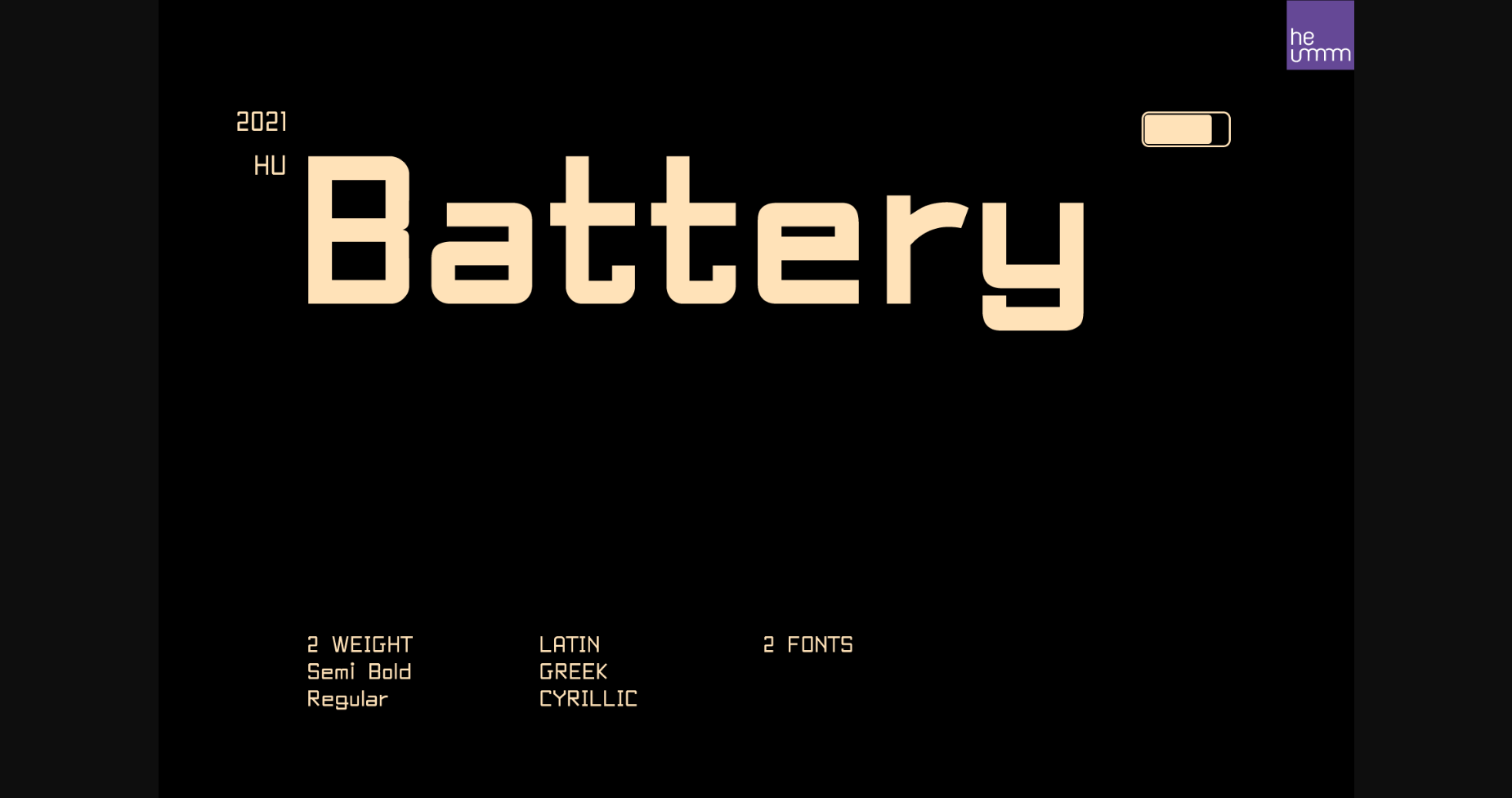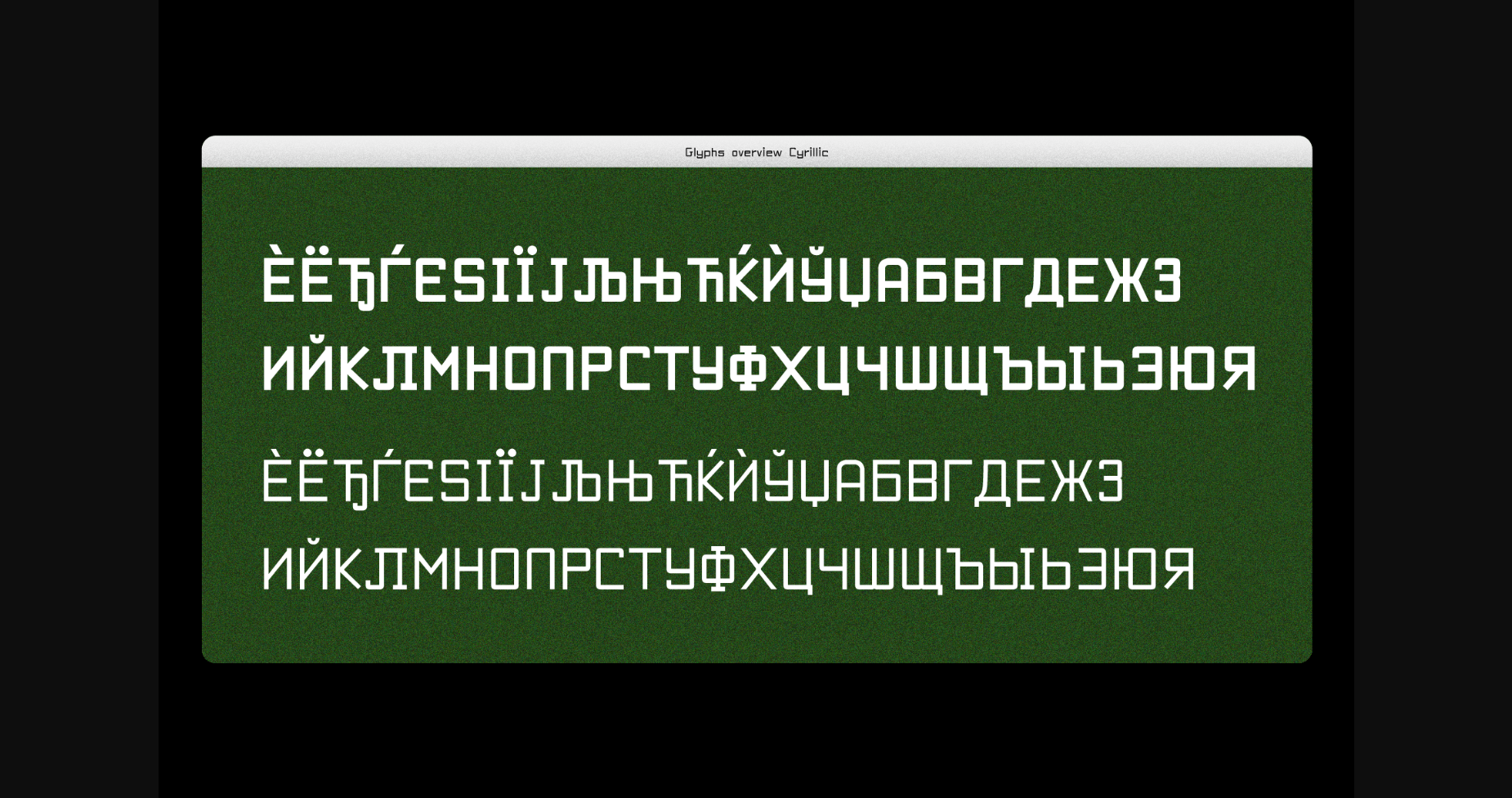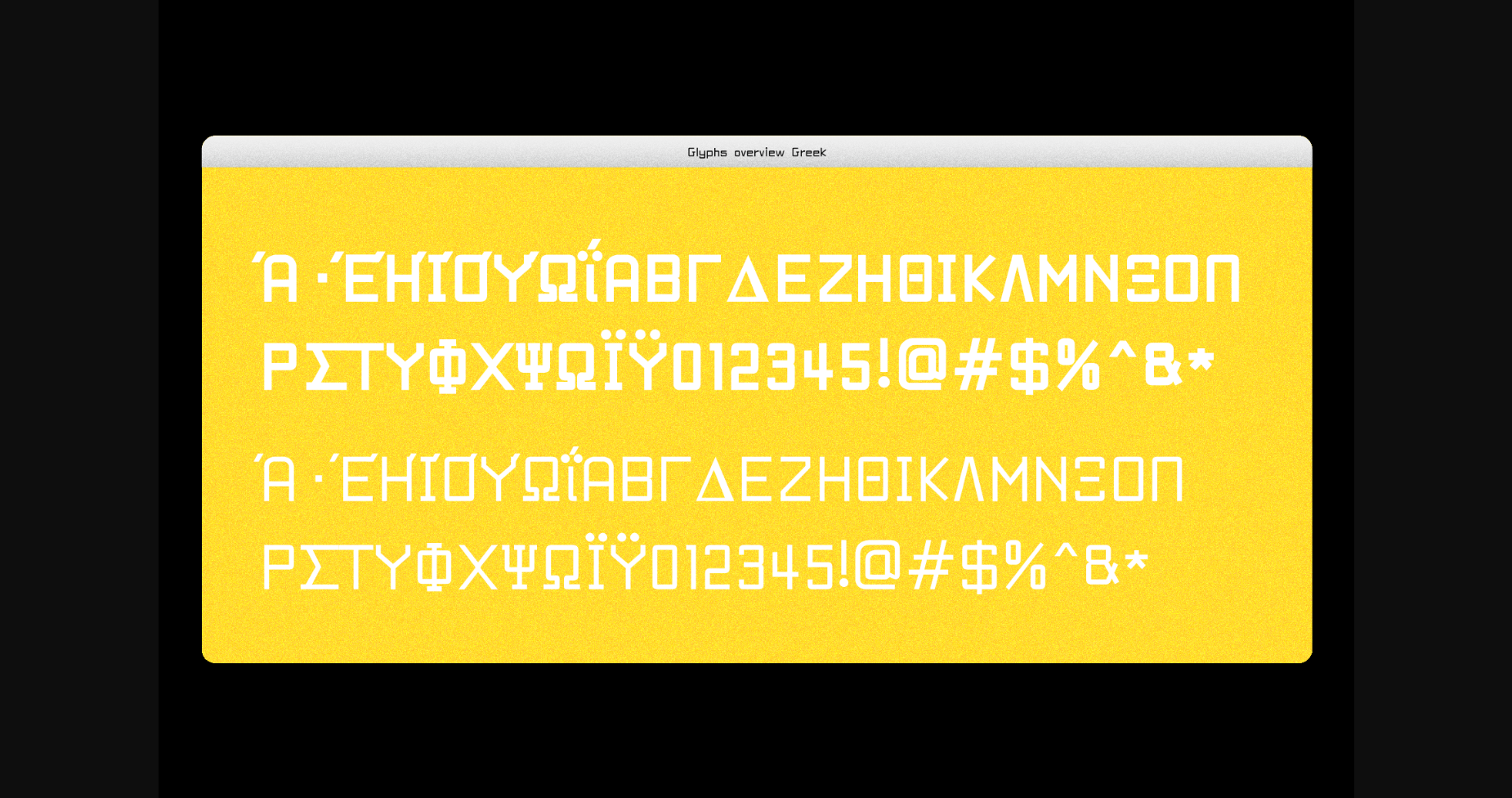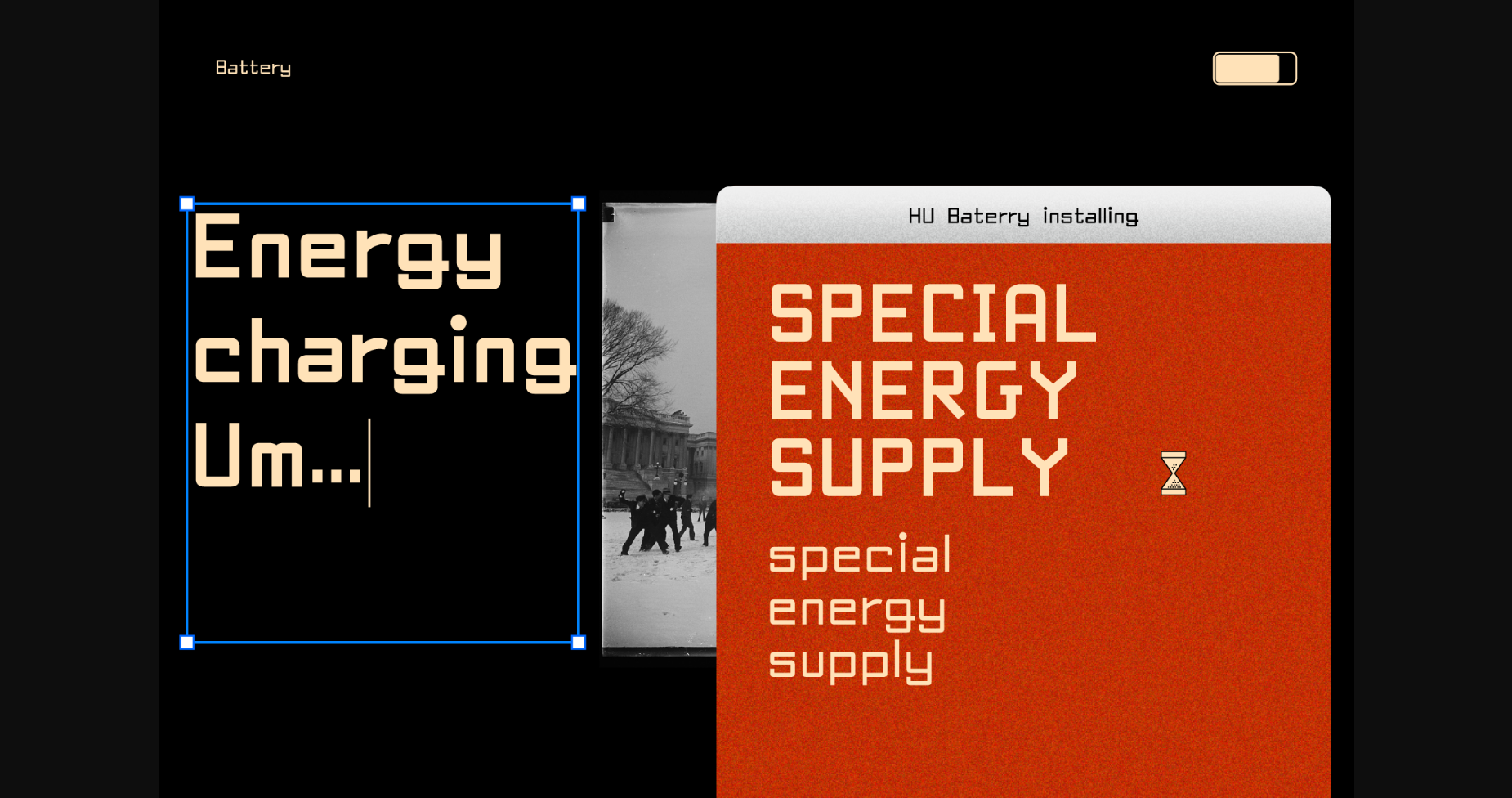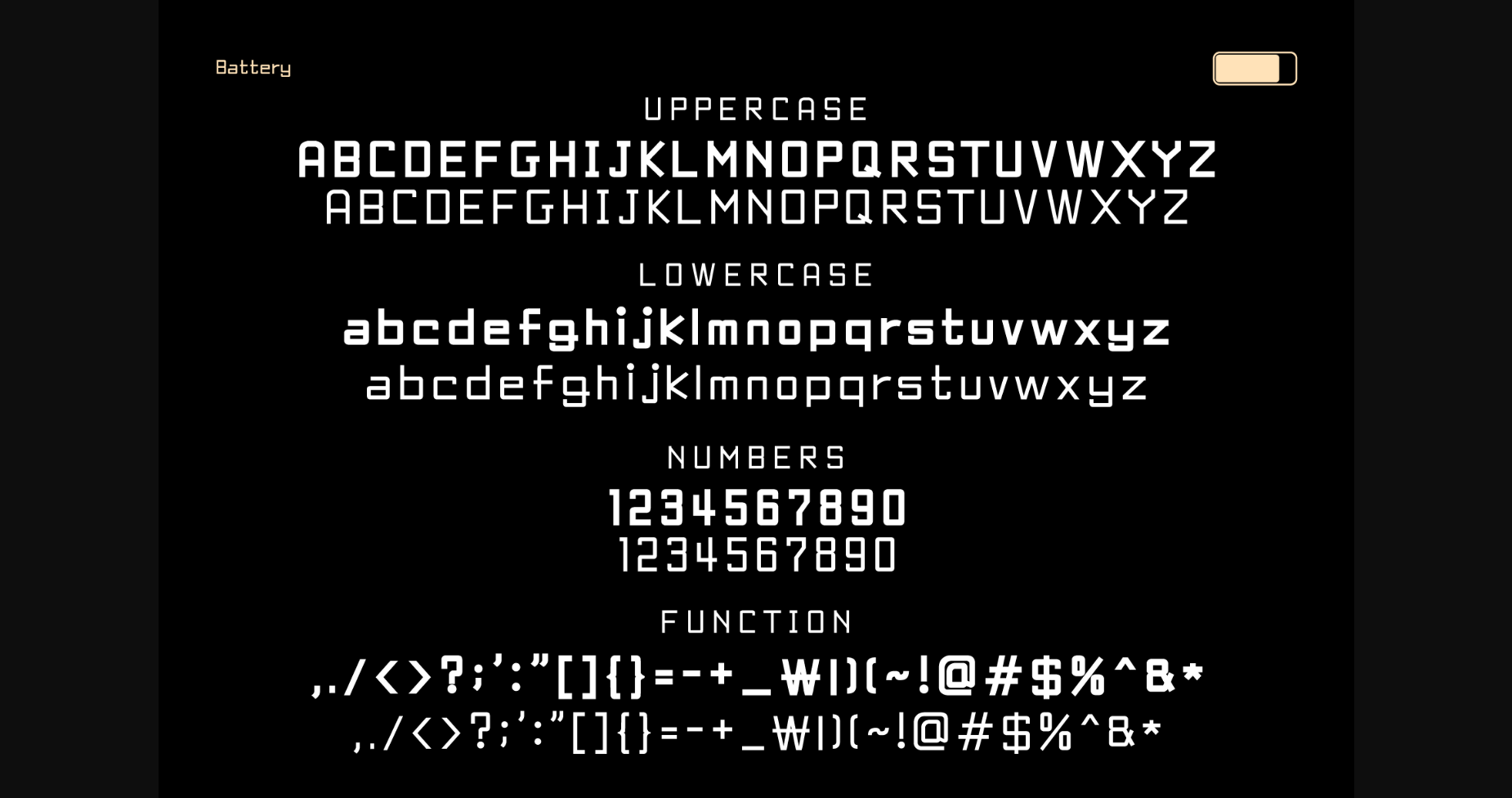
About Hu Battery Font
HU Battery is a sans serif typeface based on digital fonts. It has a trendy vibe and added round edges to the rectangular feature that is characteristic of digital fonts.